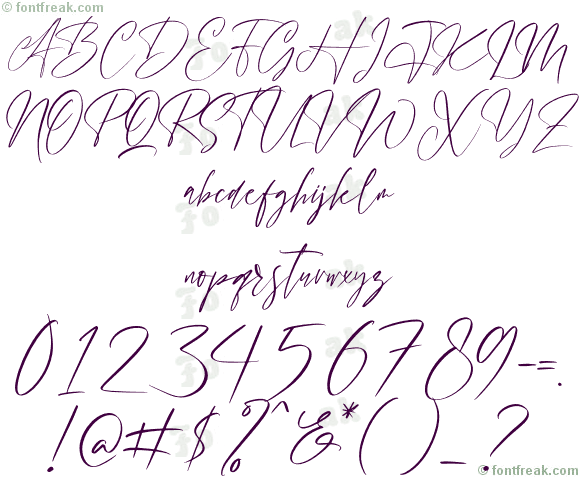
Handover Signature
About Handover Signature
The Handover Signature font by Perspectype Studio is a captivating handwritten script that exudes elegance and sophistication. With its fluid strokes and organic curves, this font captures the essence of personal touch, making it an ideal choice for projects that require a warm, inviting feel. The varying stroke weights create a dynamic contrast, adding depth and character to each letter. The spacing is thoughtfully designed, ensuring readability while maintaining a graceful flow, which enhances the overall aesthetic appeal.
Handover Signature is perfect for a variety of applications, including wedding invitations, where its romantic flair can set the tone for a special day. It also shines in branding materials for small businesses, like cafes or boutiques, where a personal touch can resonate with customers. Additionally, this font works wonderfully for creating eye-catching movie posters or promotional materials that aim to convey a sense of artistry and creativity. Content creators will find it useful for social media graphics, where it can help create a unique and memorable identity.
Targeting graphic designers, small business owners, and content creators, Handover Signature offers a versatile solution for those looking to elevate their visual communication. Its charming characteristics appeal to anyone in need of a font that balances elegance with approachability.
What sets the Handover Signature font apart is its ability to evoke emotion while remaining highly functional for various design needs. The artistry behind its creation allows it to stand out in a crowded market, making it a valuable addition to any designer's toolkit. With the Handover Signature font free download available, you can easily incorporate this beautiful typeface into your next project and impress your audience with its distinctive style.